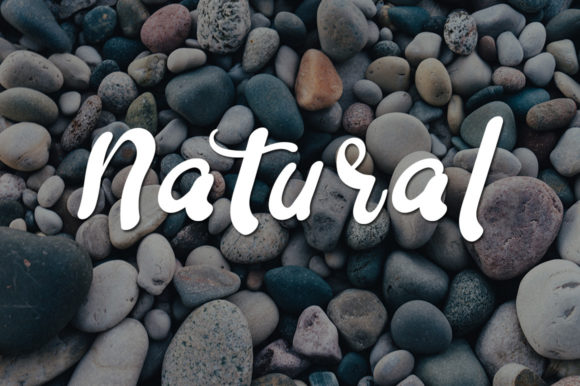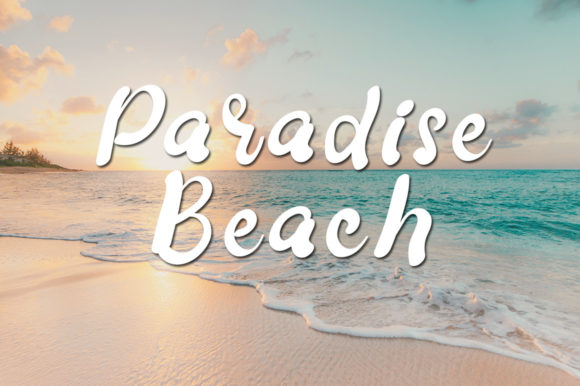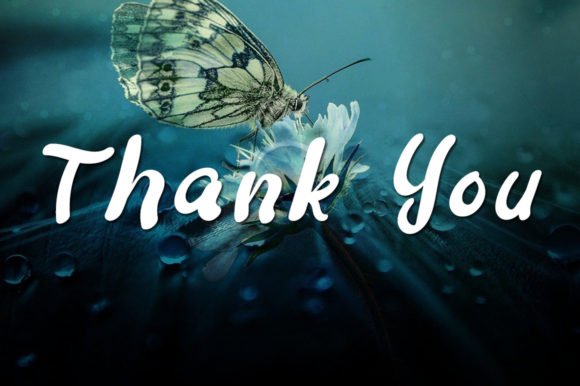
About Smart Friends Font
Smart Friends is a beautiful and sweet handwritten font. It is fresh, clean, and elegant. This font will look amazing in a great amount of projects, both formal and informal.